The LUX wordmark was crafted to be flexible. Designing it as a 3-letter typeface allowed for easy arrangement in different configurations, resulting in an adaptable and polished brand.
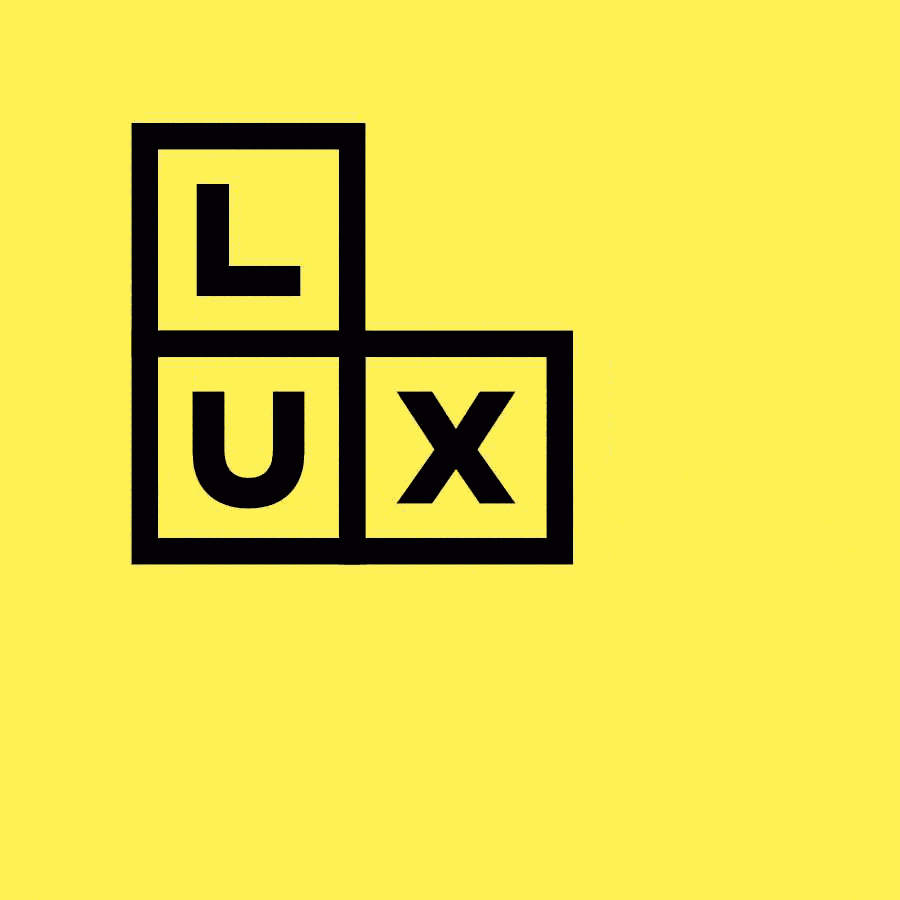
The idea behind the LUX wordmark was to create something that was flexible and could be animated or set in different configurations. I was sent a draft that had letterforms constructed from basic shapes that were set inside boxes.
I used my knowledge of letterform shapes to make optical adjustments so that the letters felt balanced in their form and width while keeping their geometric qualities. Because I knew the mark was going to be set in different configurations, I pitched the idea to produce it as a 3-letter typeface so the designer could make new versions just by typing different combinations of L-U-X, spaces, and returns.